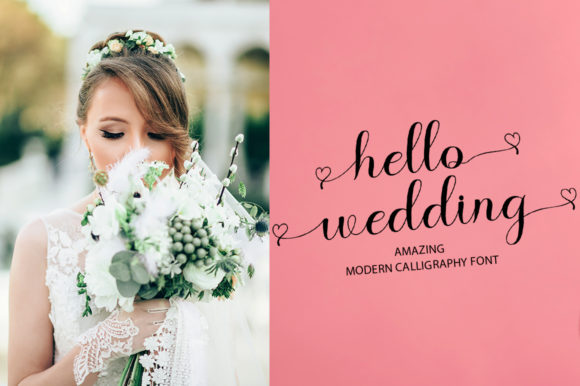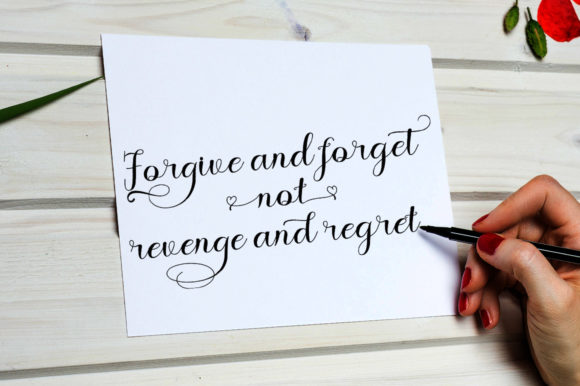
Agelliya Font
db-ku.com - Script & Handwritten -- Agelliya is playful and dynamic, but also elegant. This versatile script font has a wide range of applications ranging from calligraphy art to headlines and quotes, and is guaranteed to add a magical touch to your next design.